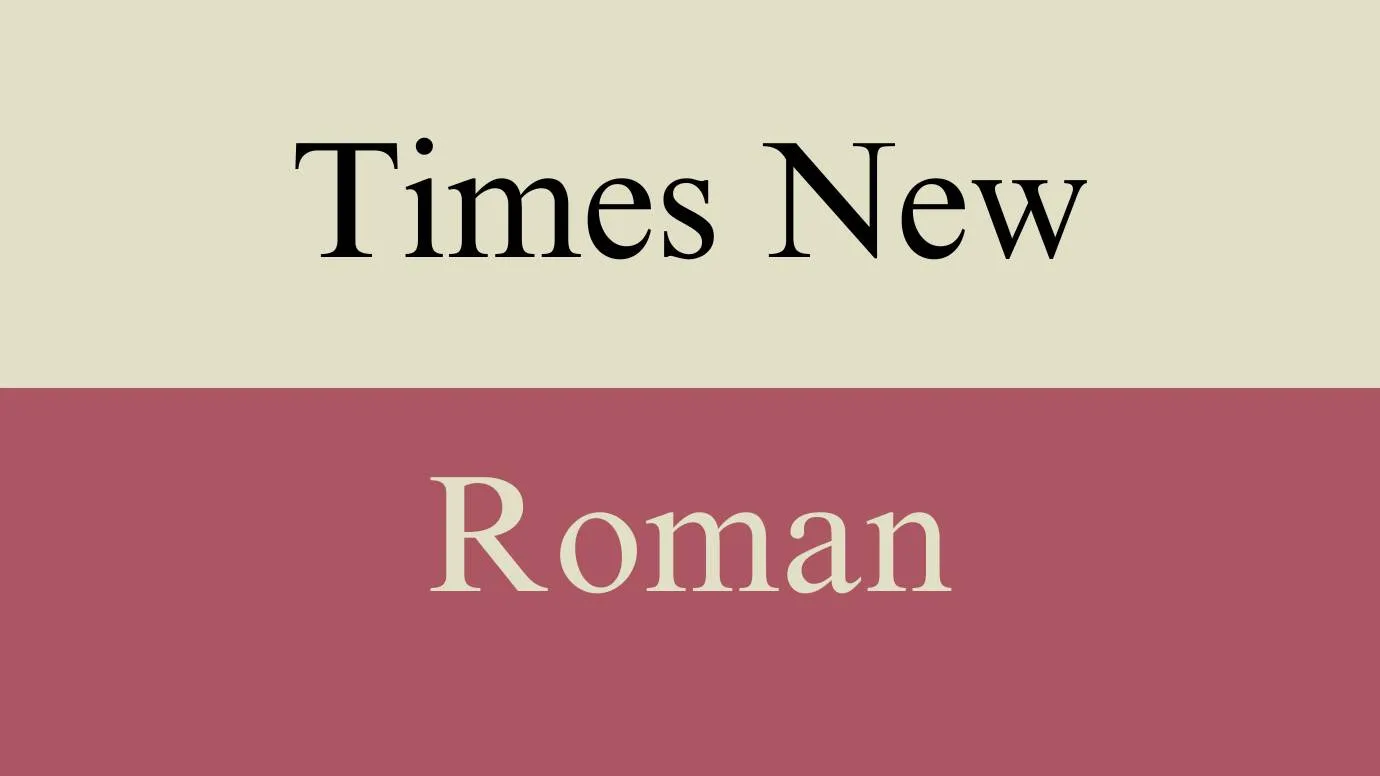
Times New Roman was designed by typographic designer Stanley Morison and authorized by British newspaper “The Times”. It belongs to the serif typeface family. In 1932 this font was released by typeface foundry “Monotype”.
This font family includes numerous weights, styles characters and letters. To create attractive designs, you can use this font with the combination of Roboto font and Futura font.
DesignerStanley Morison, Victor Lardent
TypeMixed, Old-style, Transitional
Foundry Monotype Imaging
Date Released1931